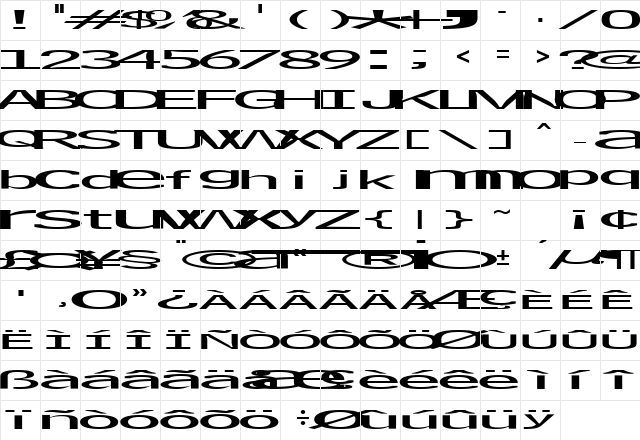
plakativo Regular
Design Context for plakativo Typeface
plakativo is a composed and adaptable typeface that performs quietly and consistently across a wide range of design contexts.